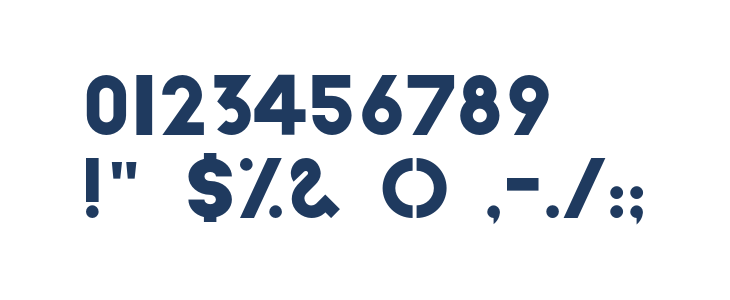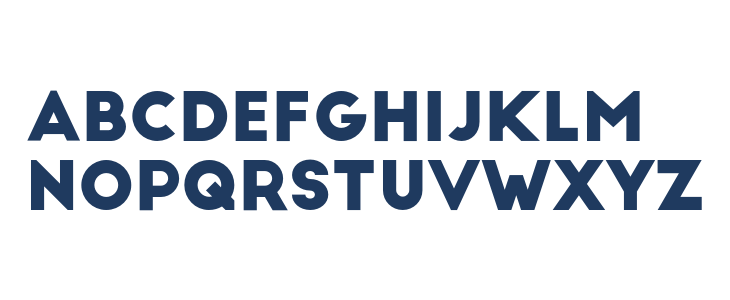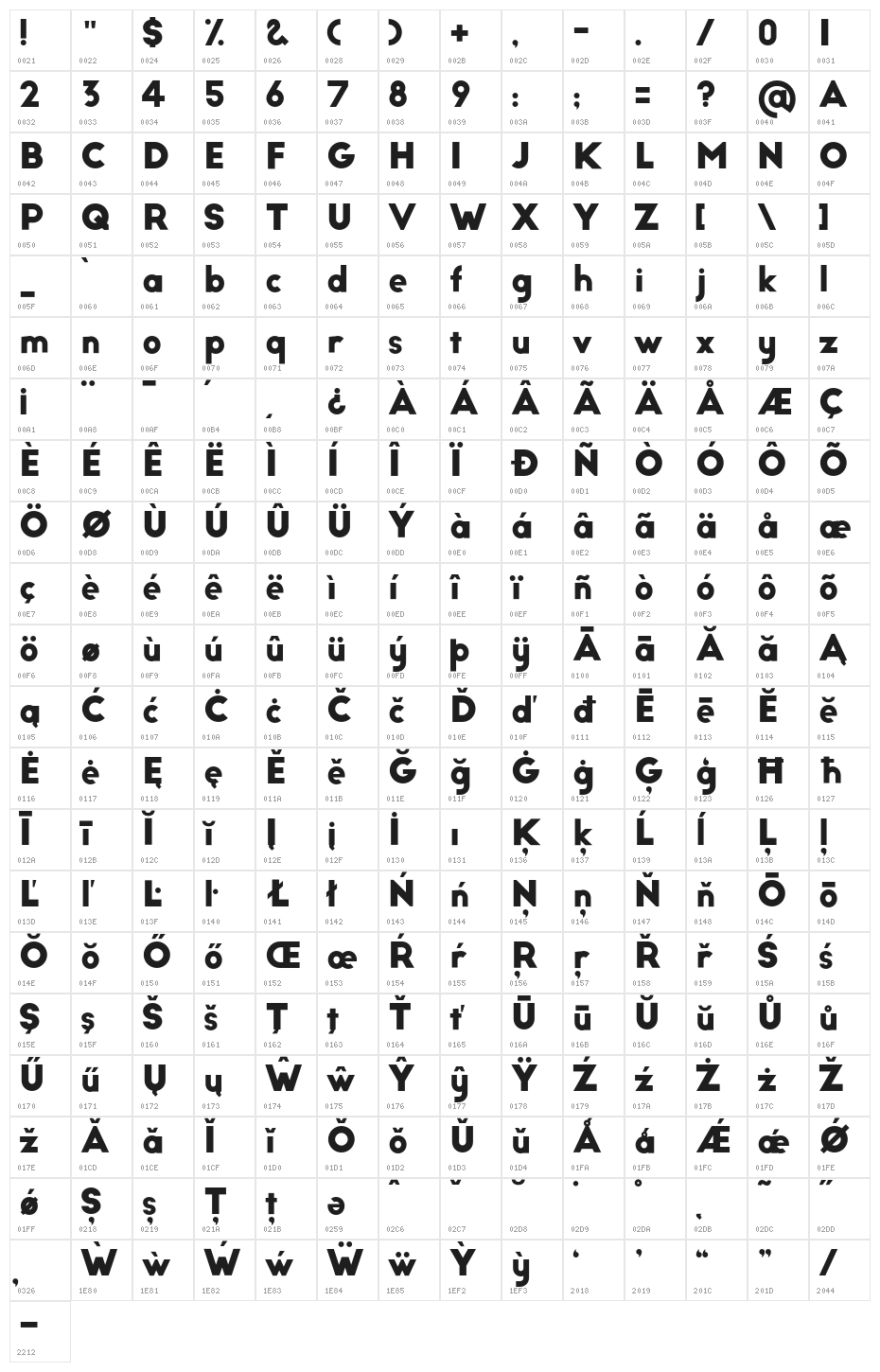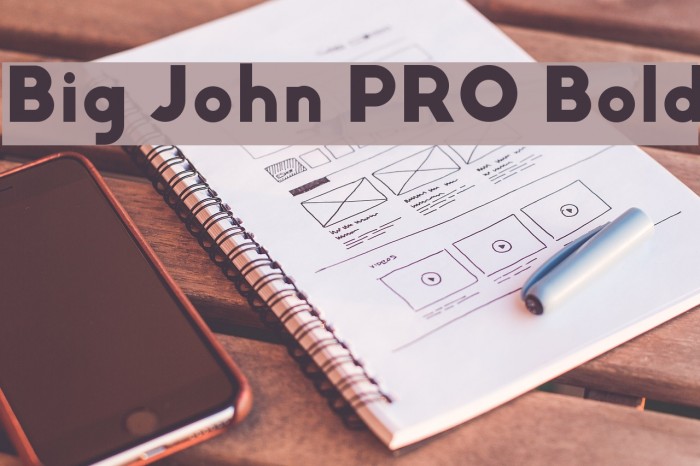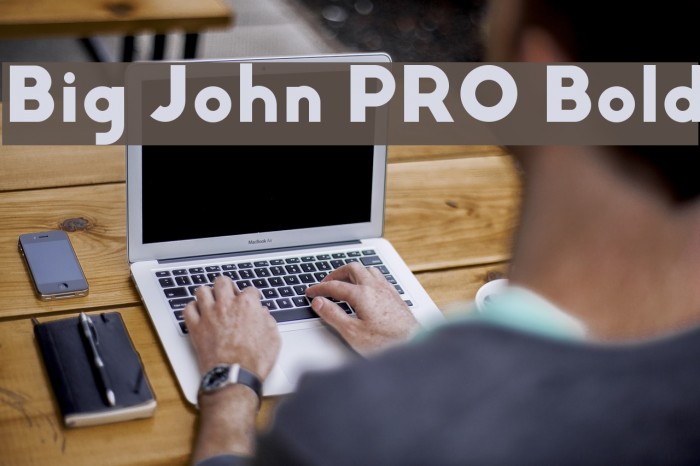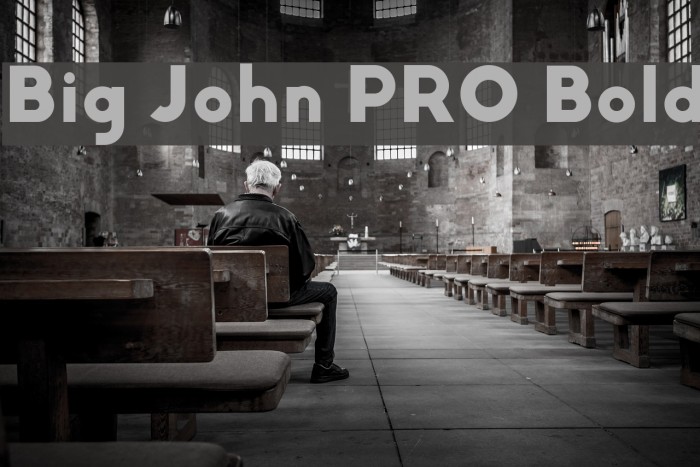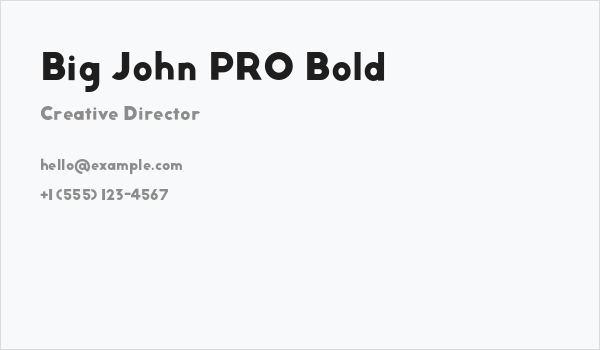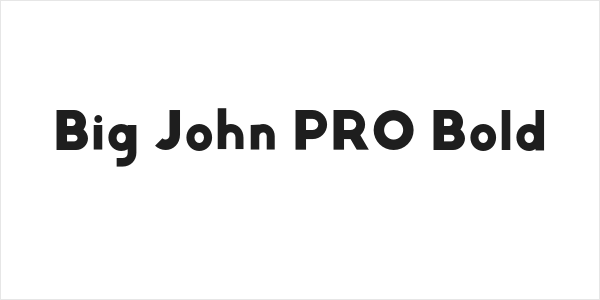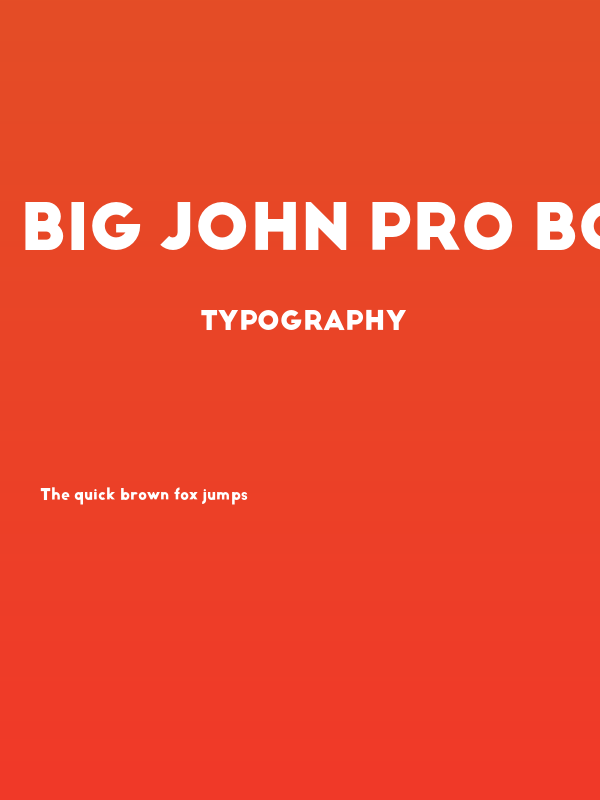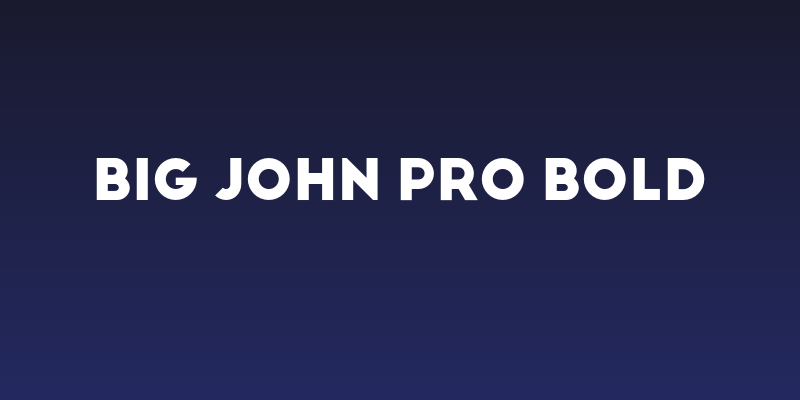
Big John PRO Bold Font
Big John PRO Bold Description
This font exhibits a bold and impactful style, characterized by thick, uniform strokes and a geometric structure. The uppercase and lowercase letters maintain a consistent weight, providing a strong visual presence. The numerals are equally bold, ensuring readability and emphasis. Special characters are designed with the same boldness, making them stand out. The overall design is modern and clean, suitable for making a statement in any design project. Its simplicity and strength make it versatile for various applications.
Proposed ProjectsIdeal for headlines, posters, branding, and any project requiring a strong visual impact.